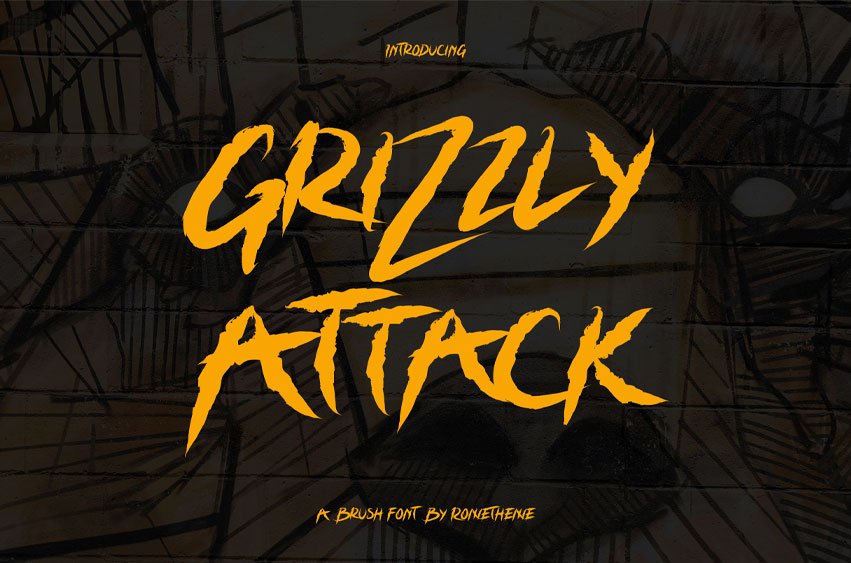
Grizzly Attack Font is a brush stroke font, with tons of character and style.
This urban, stylish font is a great way to give your designs a crafted appeal. This is a great font choice for alternative and relaxed branding projects.